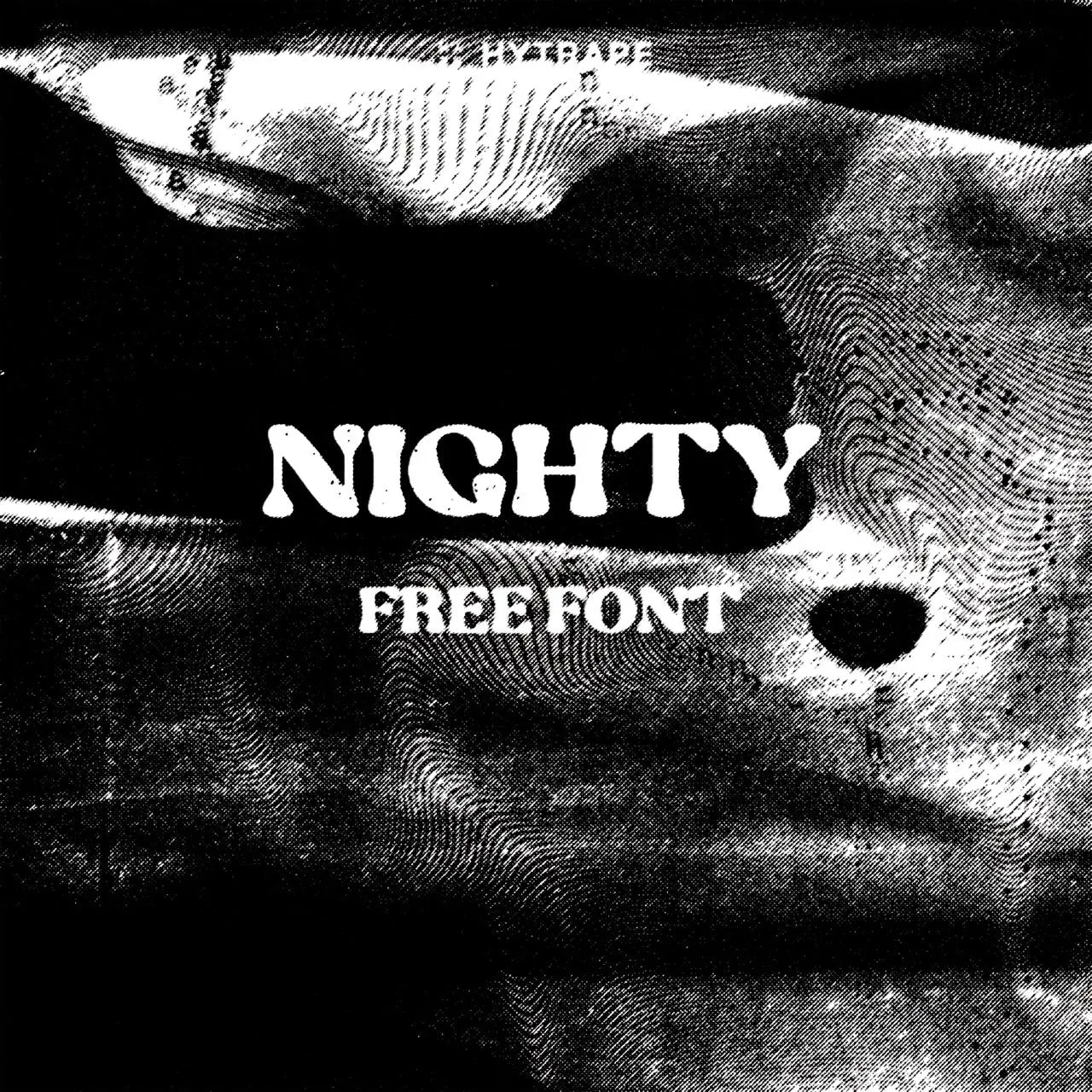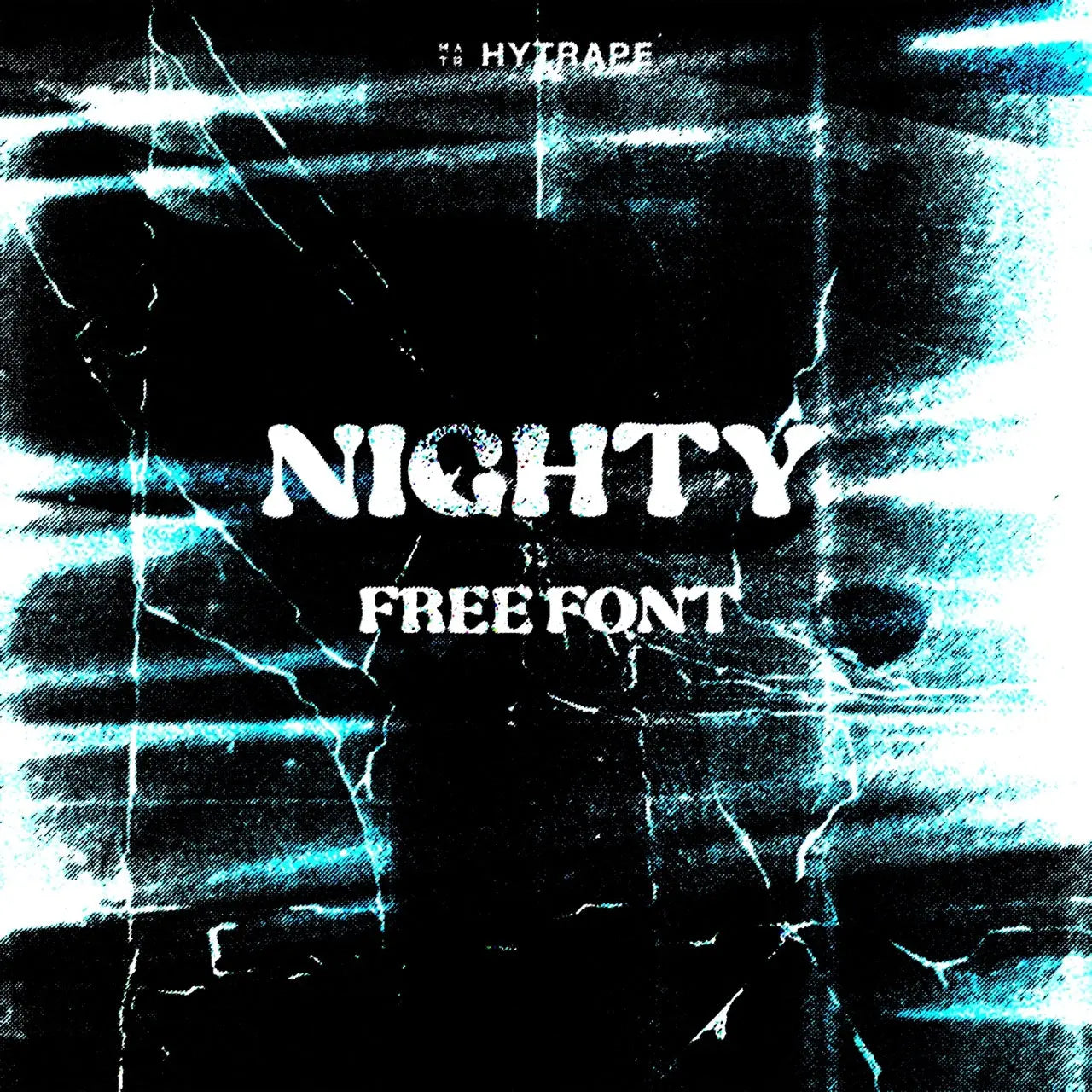
Nighty is a heavy font with rounded serifs and a warm, retro style. It stays readable even at medium sizes.
NIGHTY FONT (FREE) is an experimental font designed for professionals looking for unique and original typography. Use it legally for your personal projects.Customer reviews